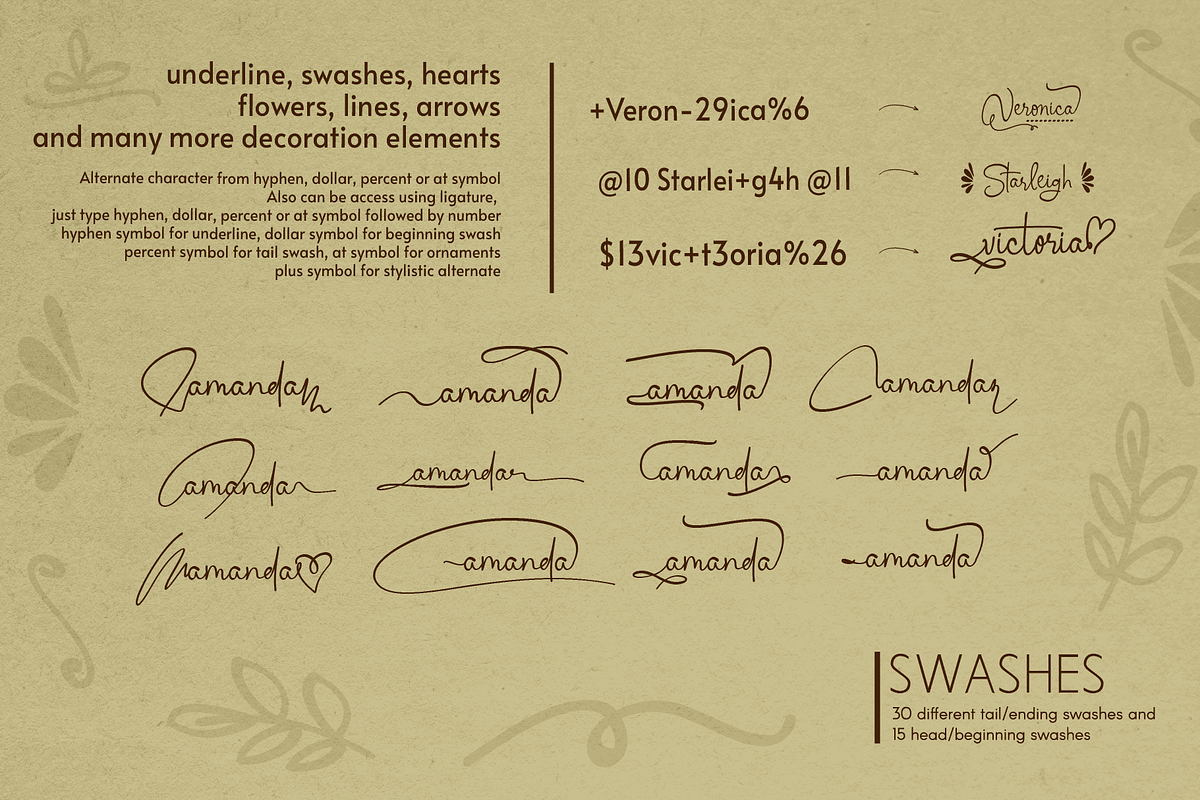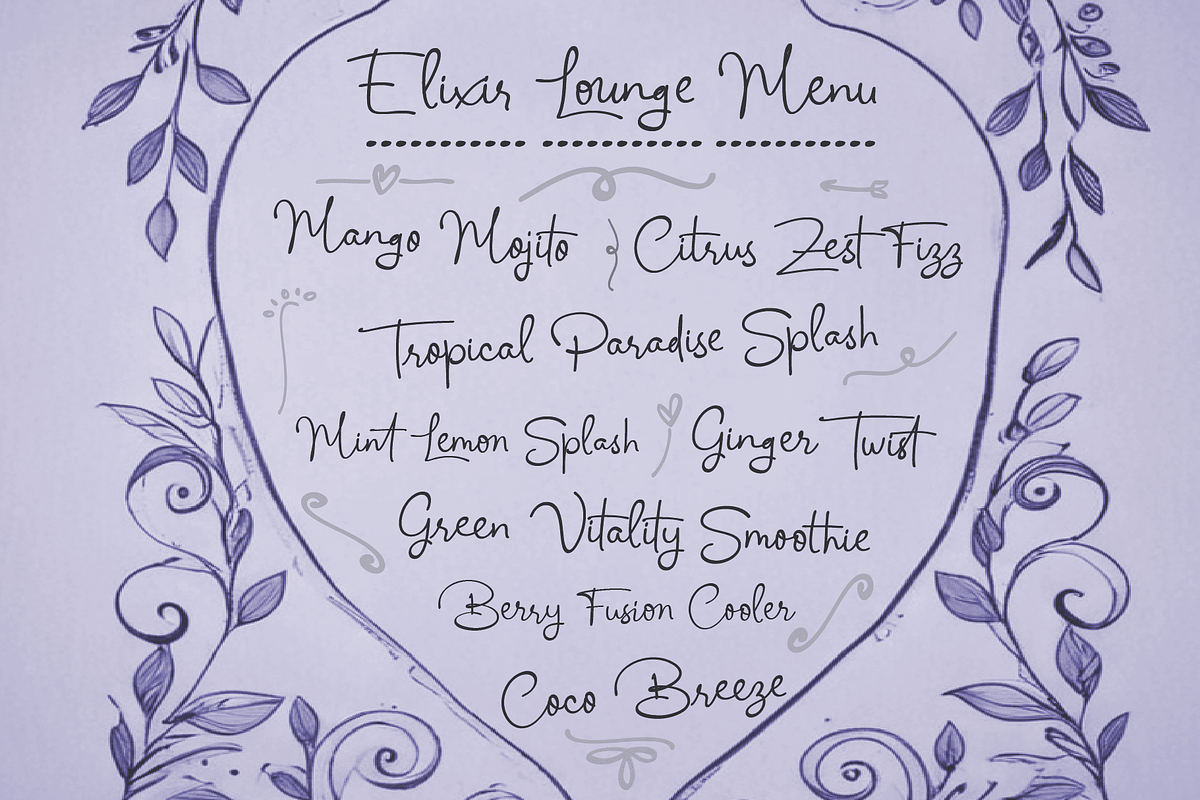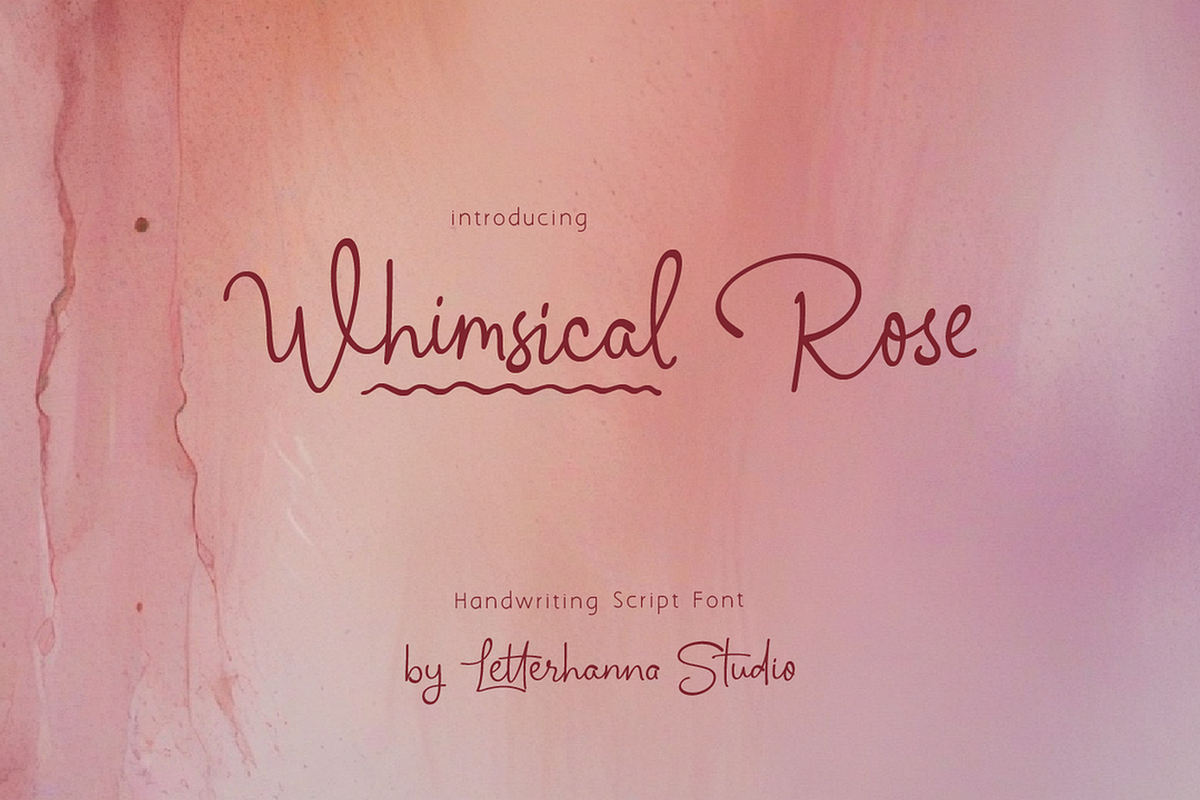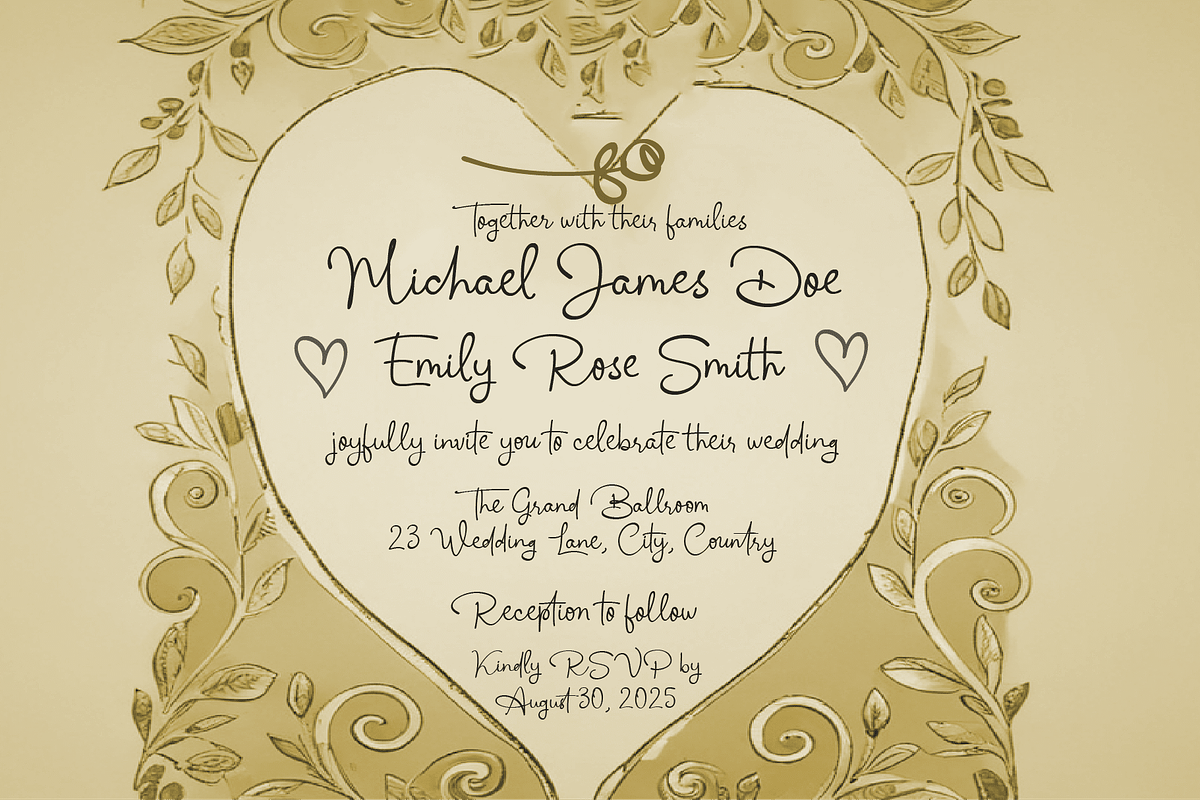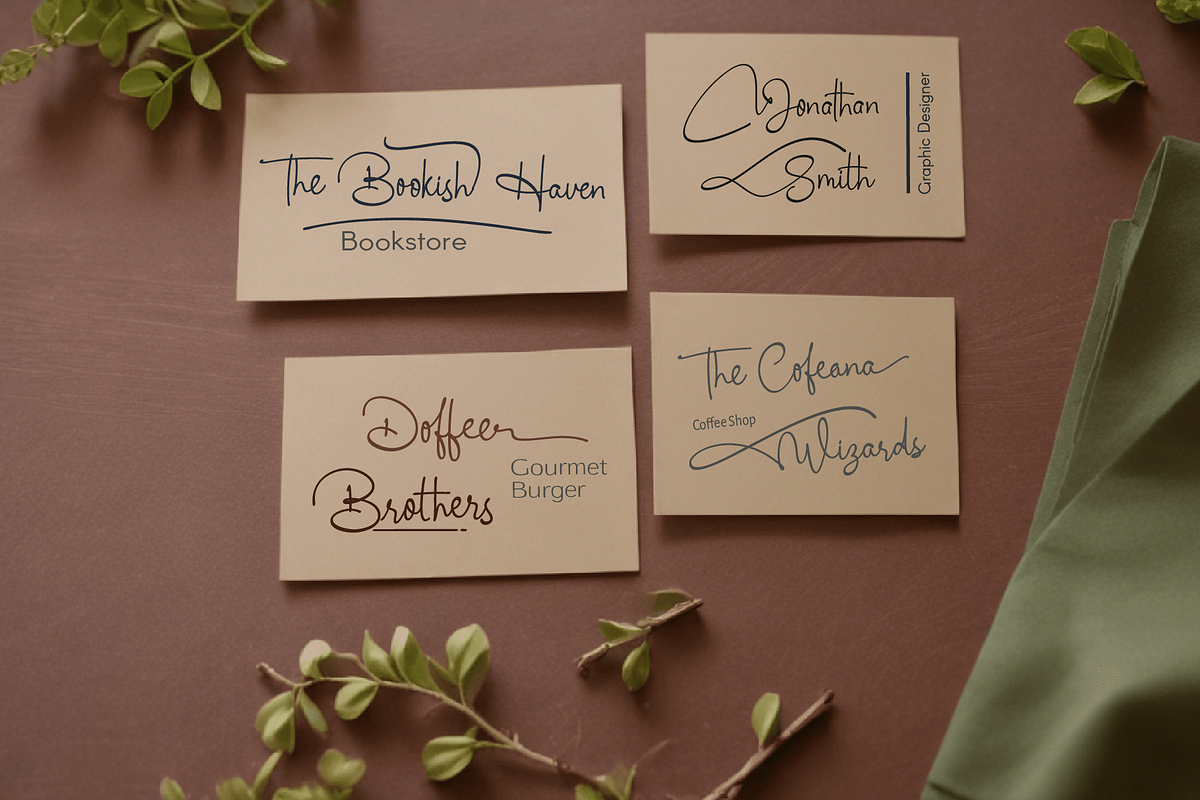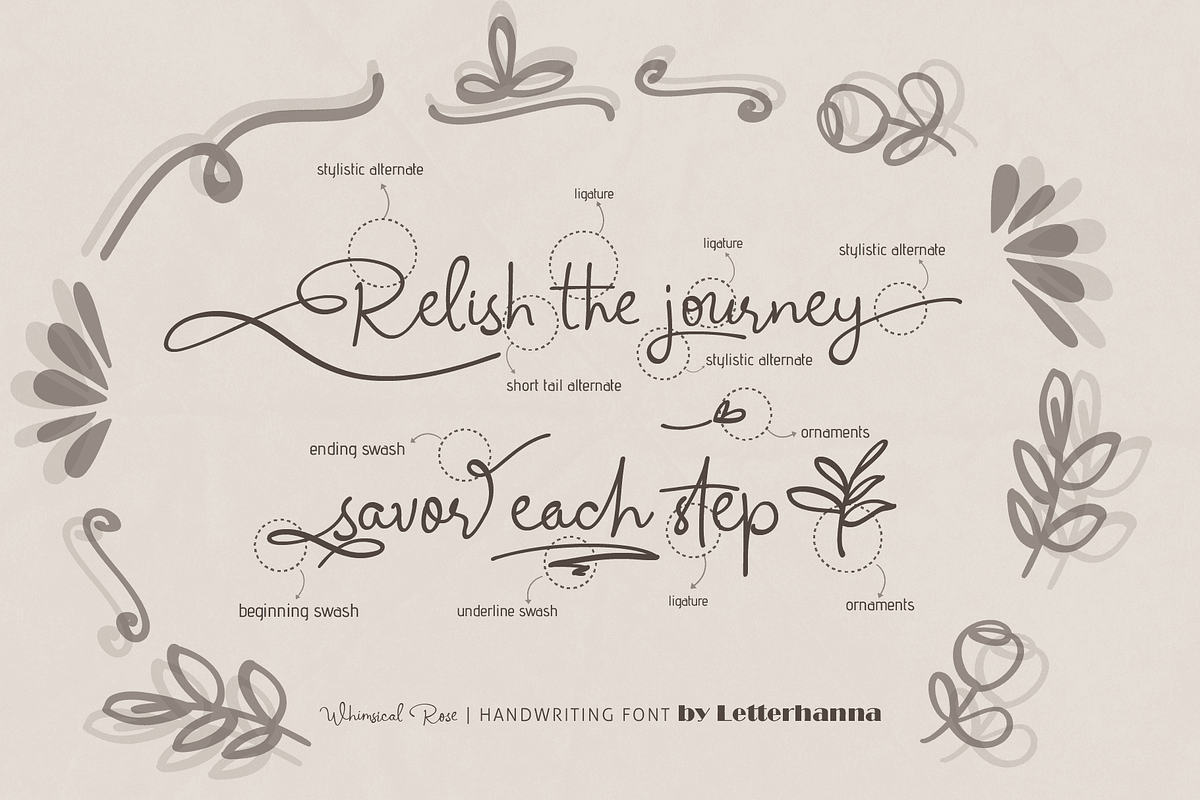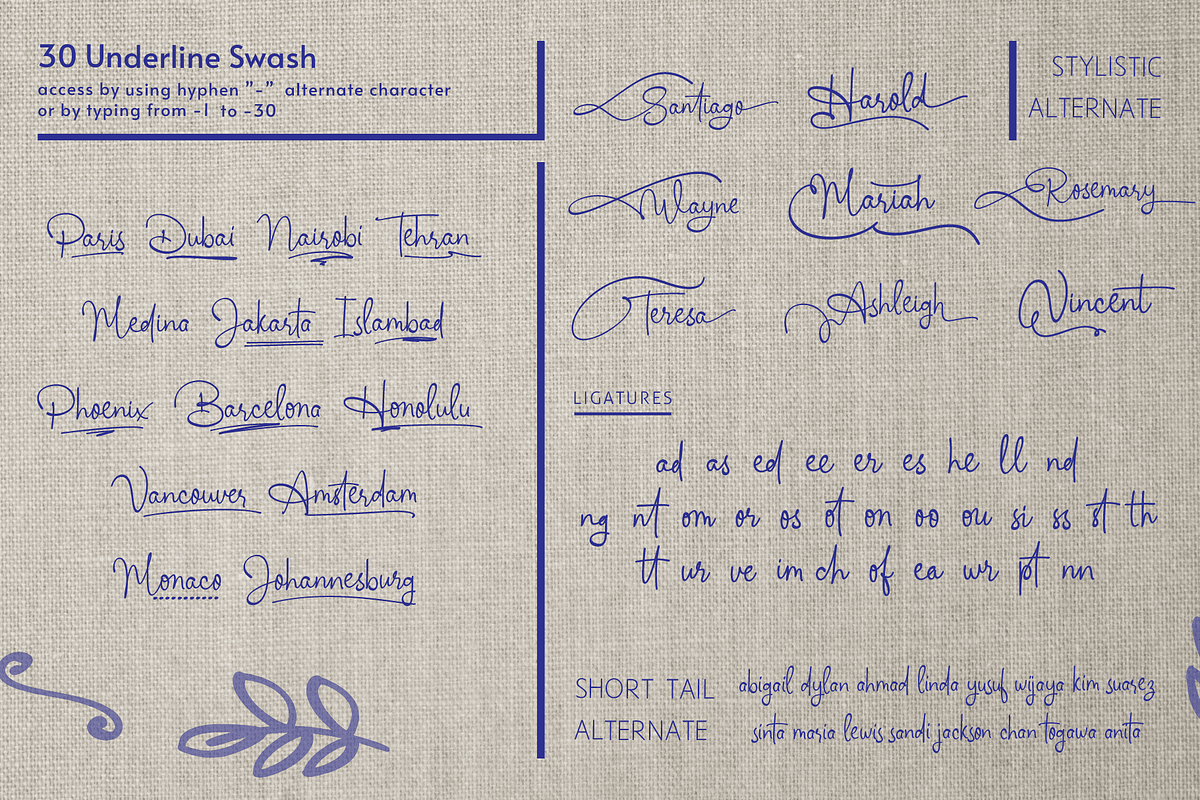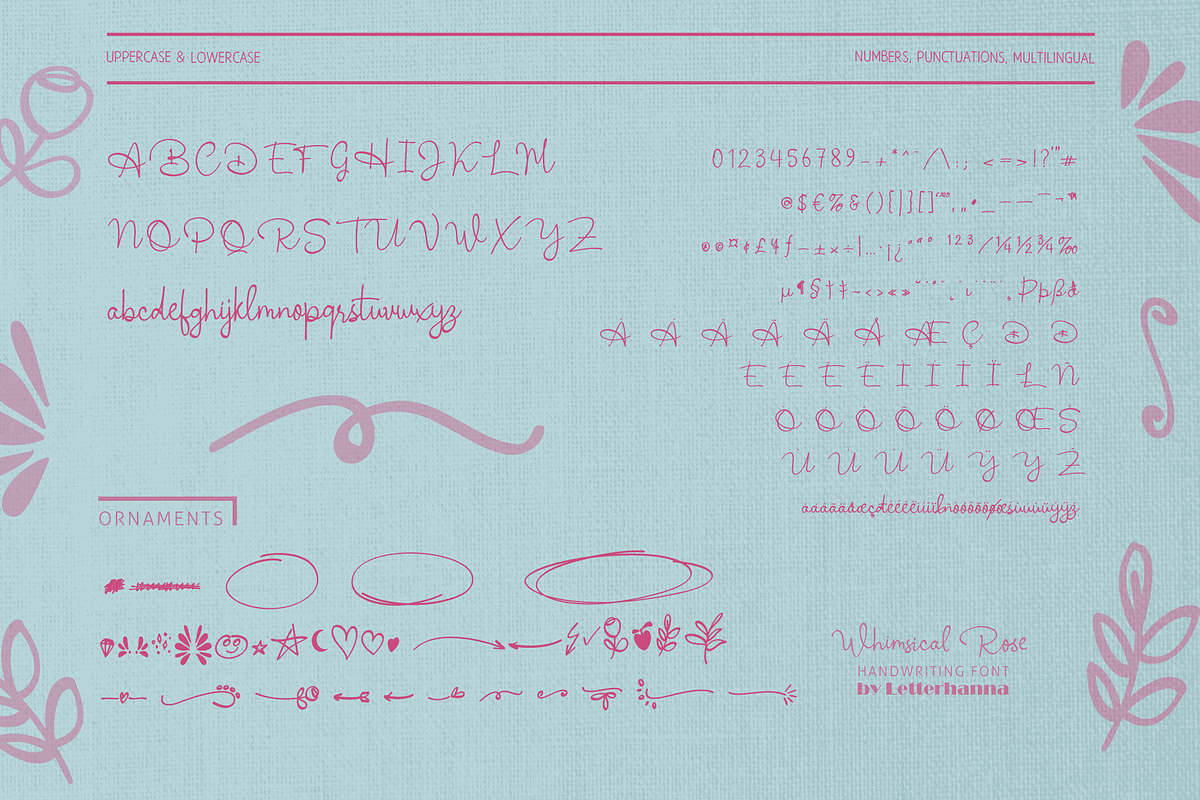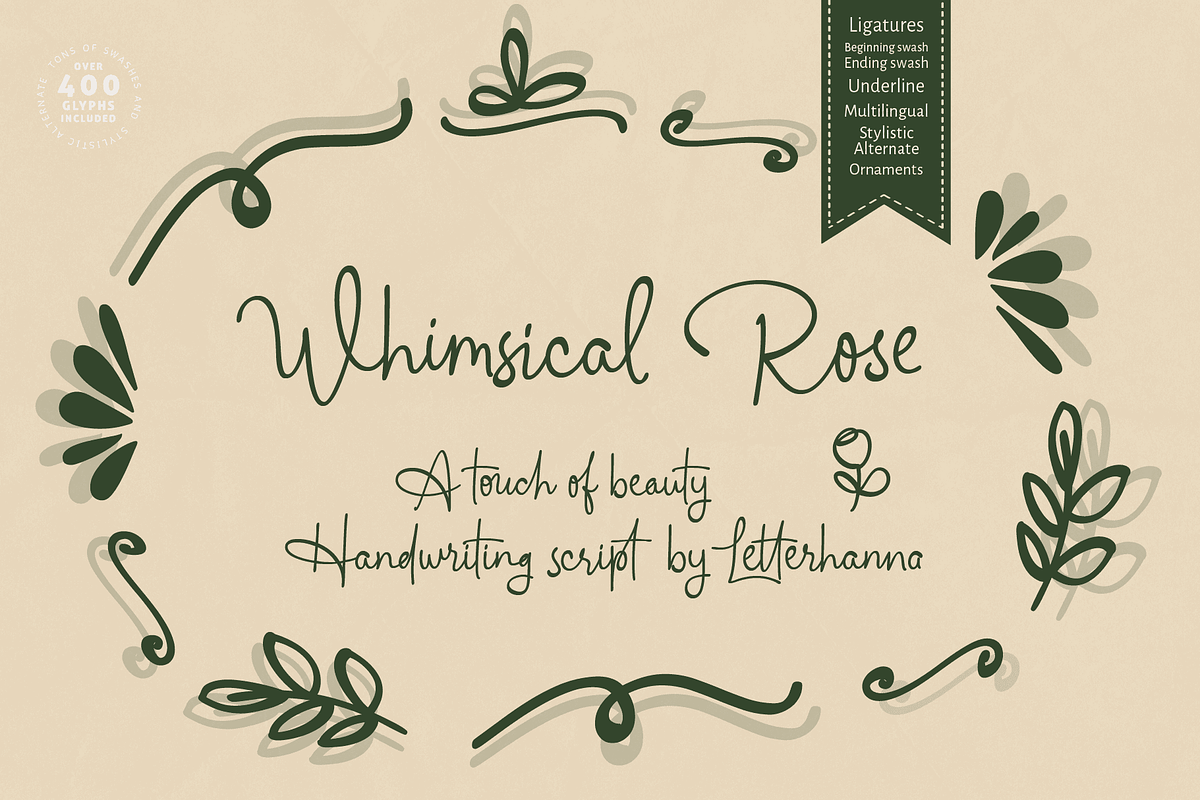
Whimsical Rose Font
Introducing Whimsical Rose – a charming, flowery script font that dances with elegance and creativity. With its whimsical strokes and delicate curves, this handwriting font brings a touch of romance and artistry to every design. Perfect for branding, invitations, and heartfelt creations, Whimsical Rose adds a graceful flourish to your words. Let your creativity bloom!
Easy Access to Glyphs and Swashes
Accessing Swashes and Ornaments
Underline Swashes: Use a hyphen symbol "-" followed by a number between 1 and 30. For example, type "-3", "-22", or "-17" to get various underline swashes.
Head/Beginning Swashes: Use a dollar sign "$" followed by a number between 1 and 9. For example, type "$2" or "$8" to get different head/beginning swashes.
Tail/Ending Swashes: Use a percent sign "%" followed by a number between 1 and 30. For example, type "%3" or "%15" to get various tail/ending swashes.
Ornaments: Use an "at" symbol "@" followed by a number between 1 and 26. For example, type "@4" or "@13" to get different ornaments.
Uppercase and lowercase letters
Numbers and punctuation marks
Beginning and ending swashes
Underline swashes
Ornaments
Easy access to swashes using ligatures